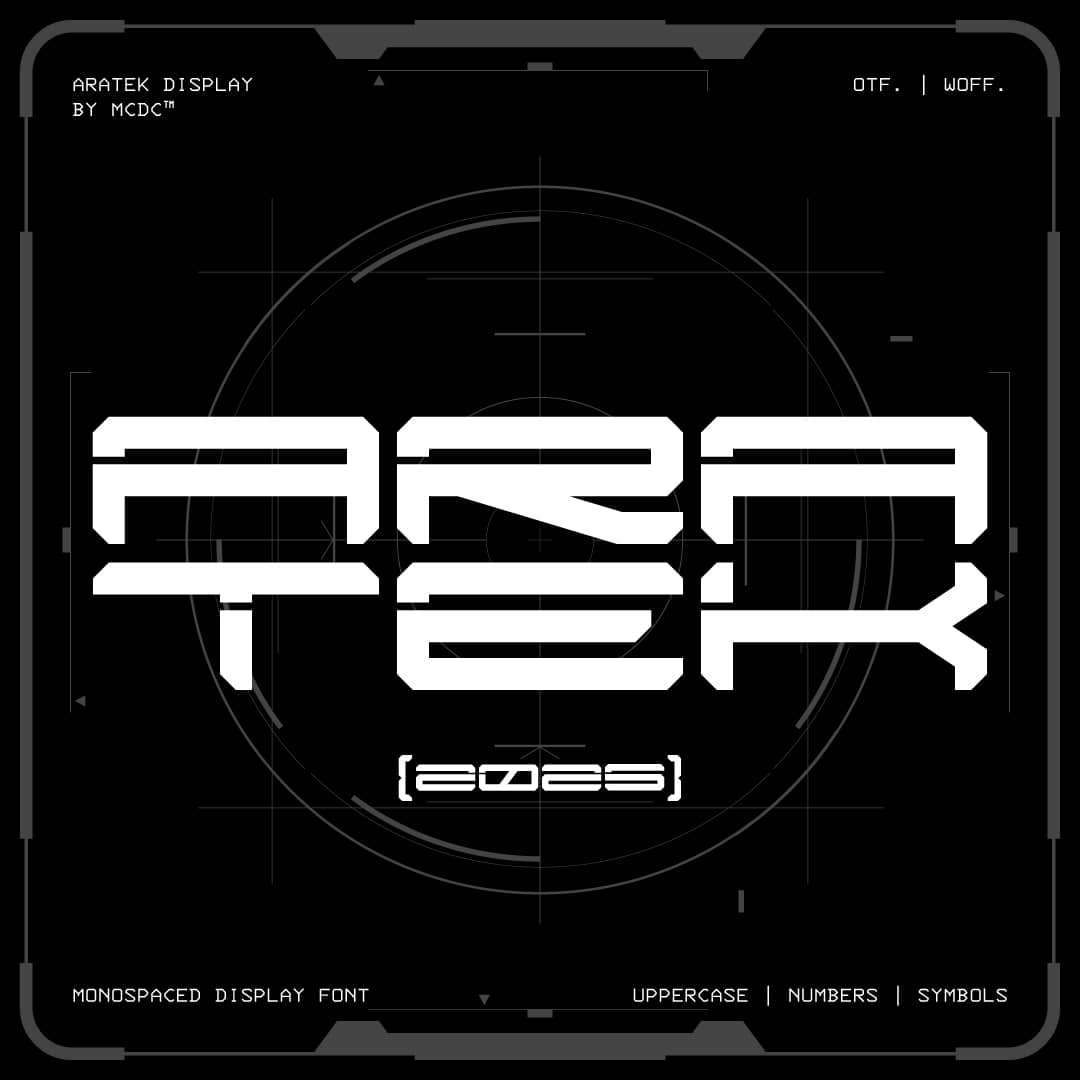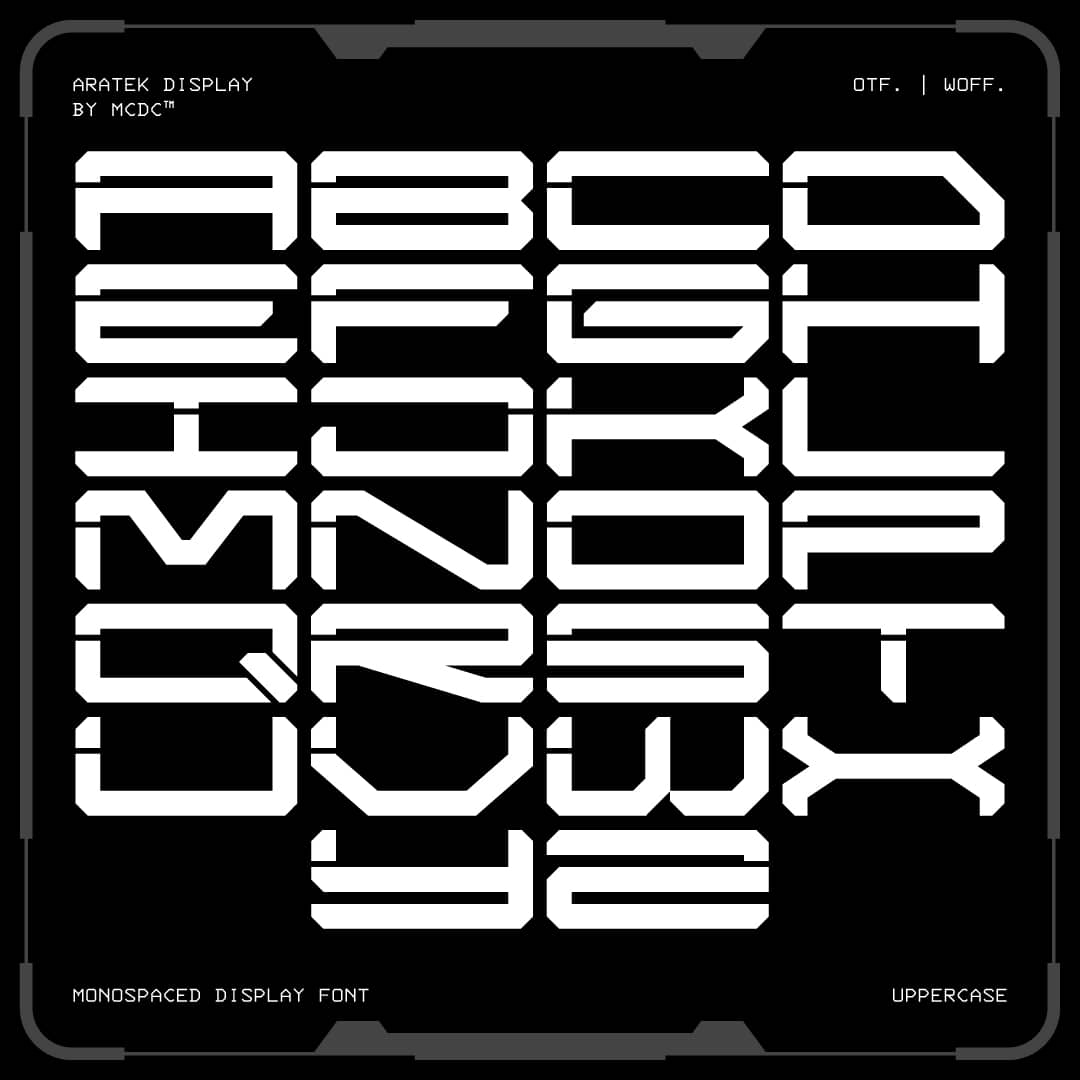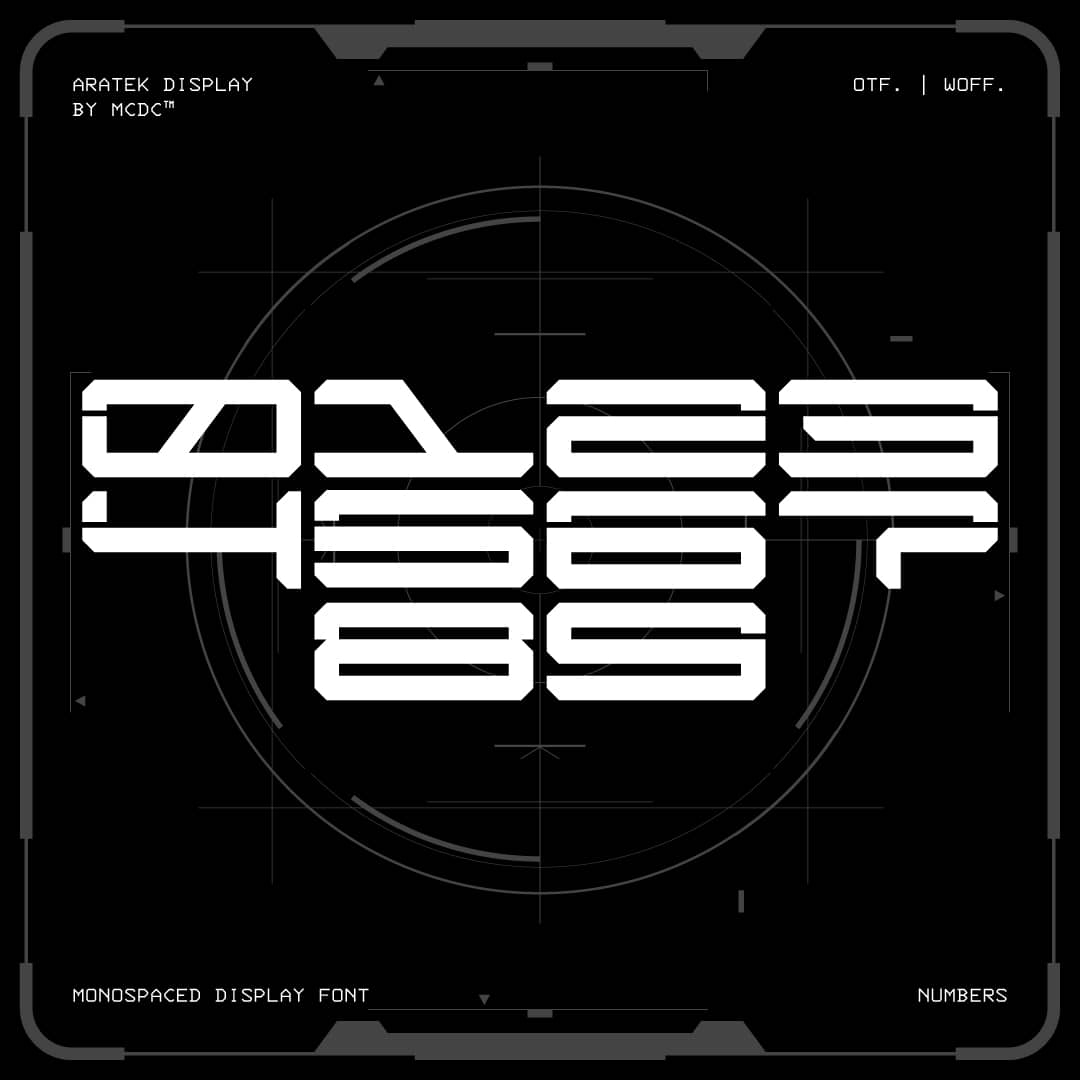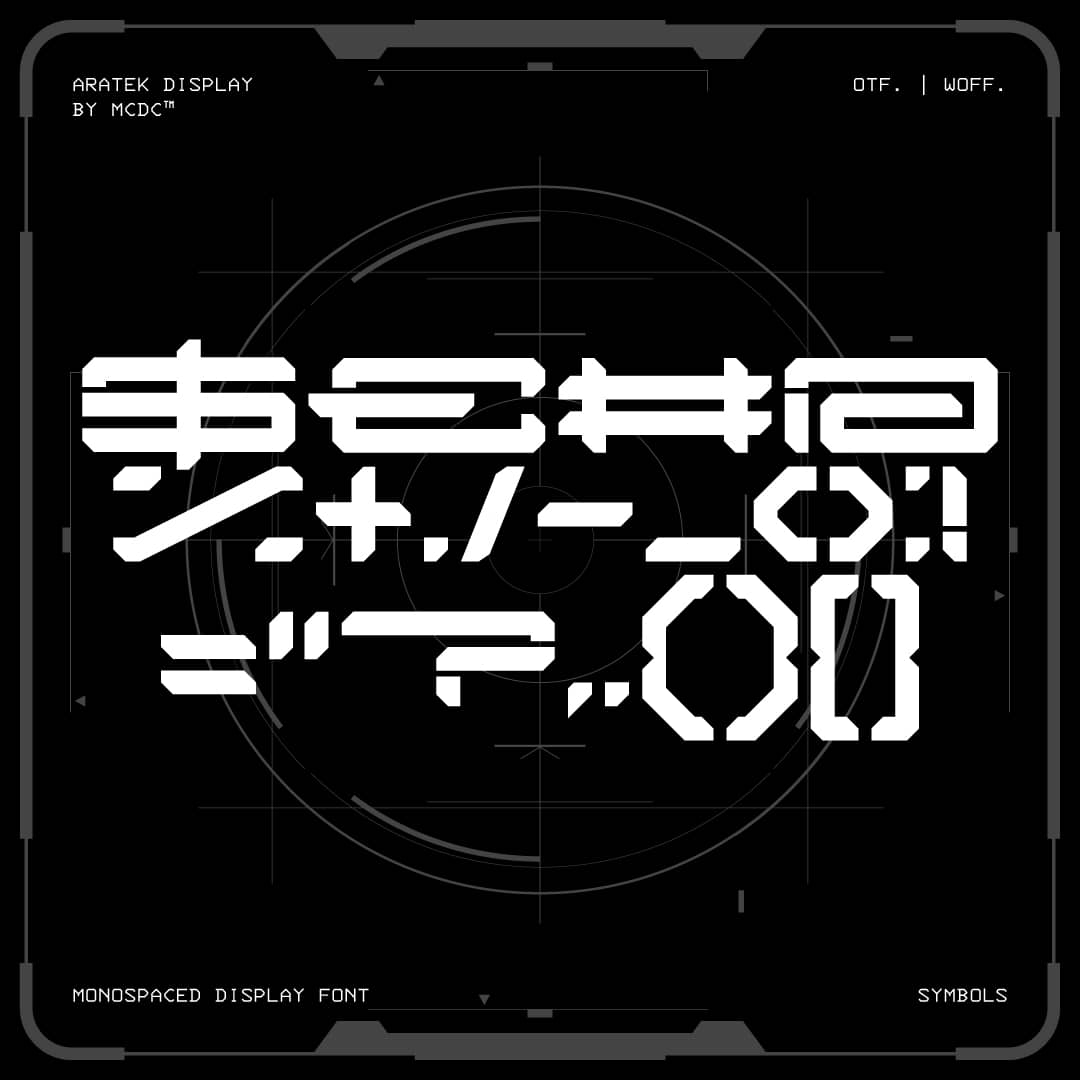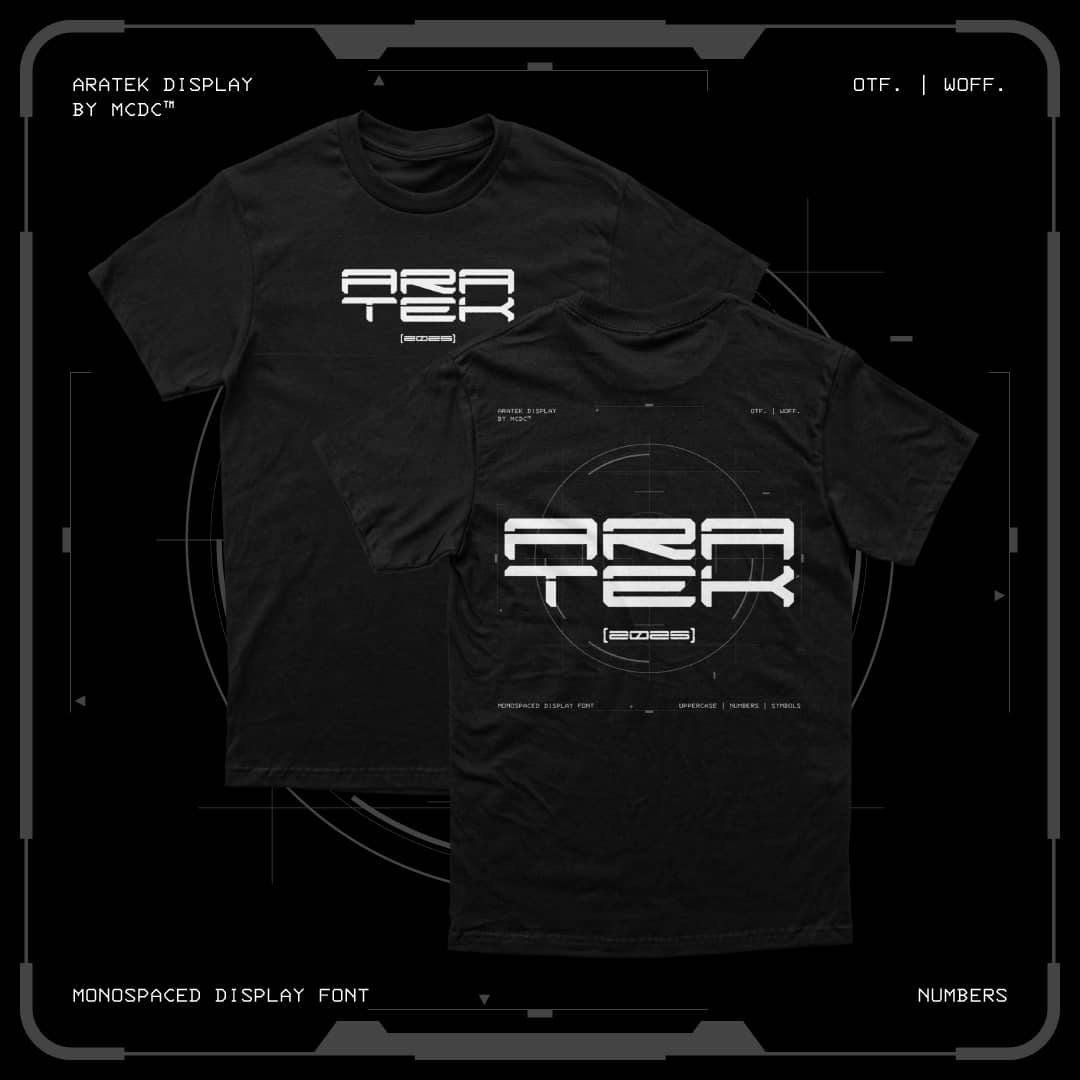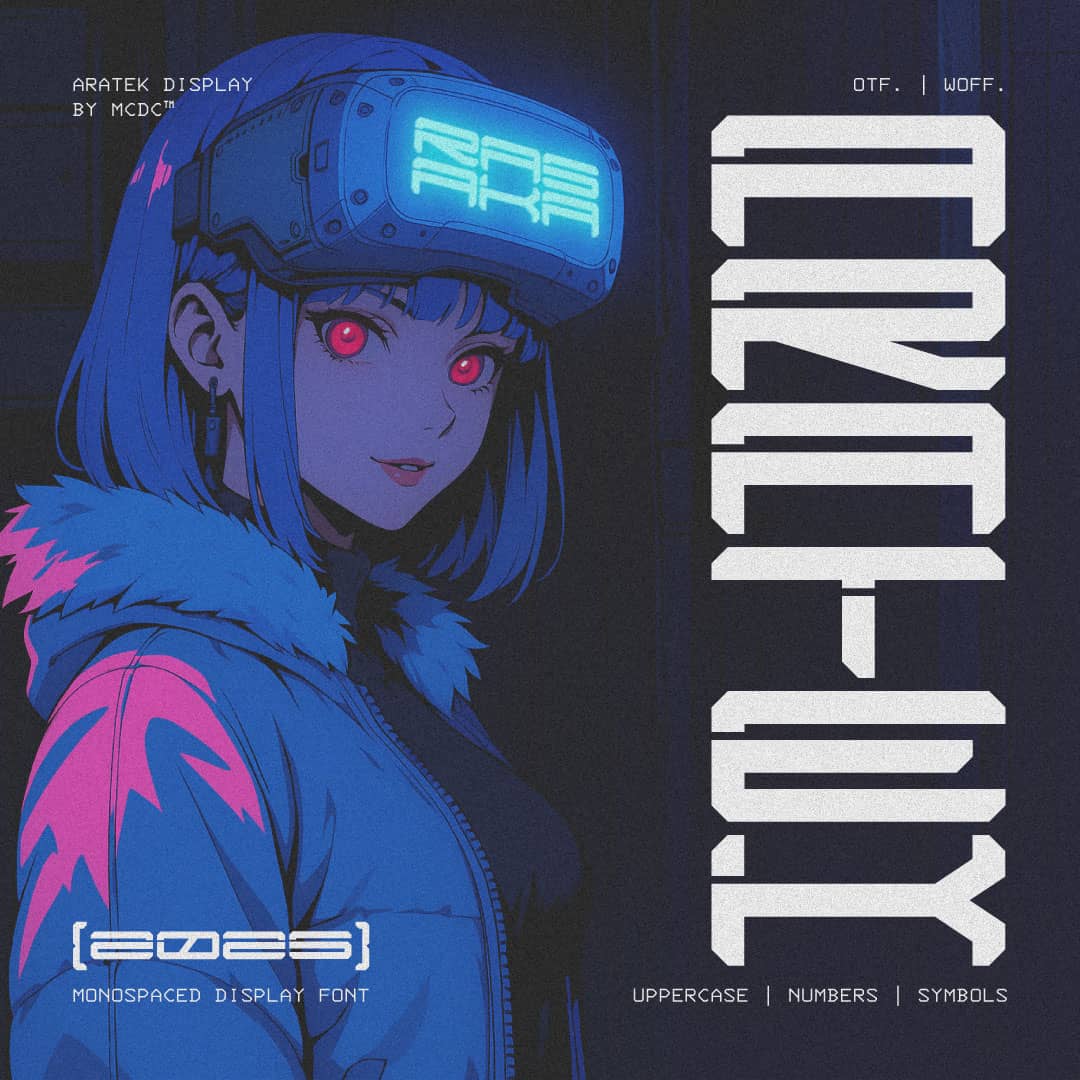
ARATEK
ARATEK is a bold, monospaced typeface built for the future. With clean lines and a structured, tech-forward aesthetic, it’s ideal for titles, branding, UI design, gaming projects, or anything needing a confident digital edge.